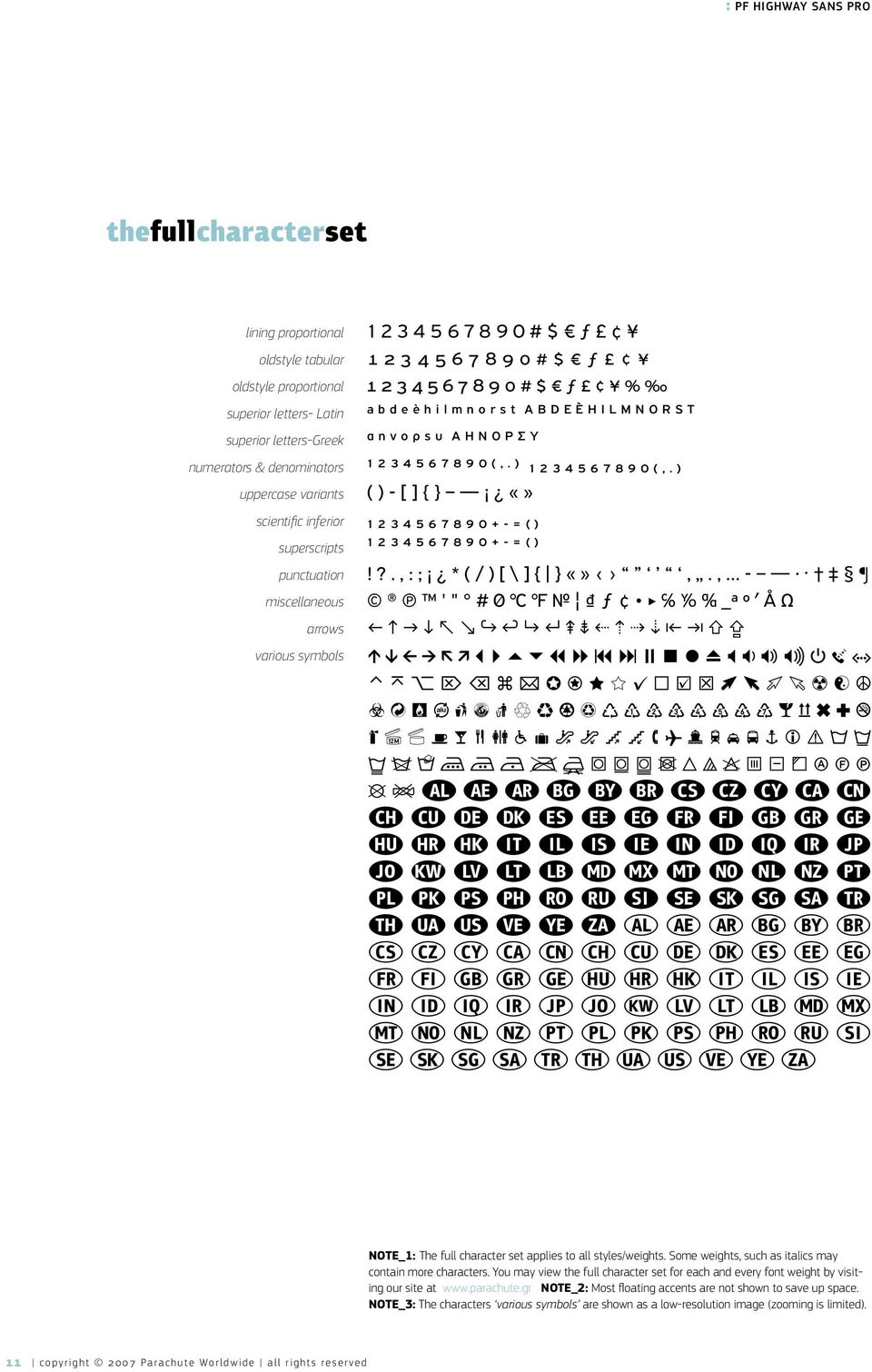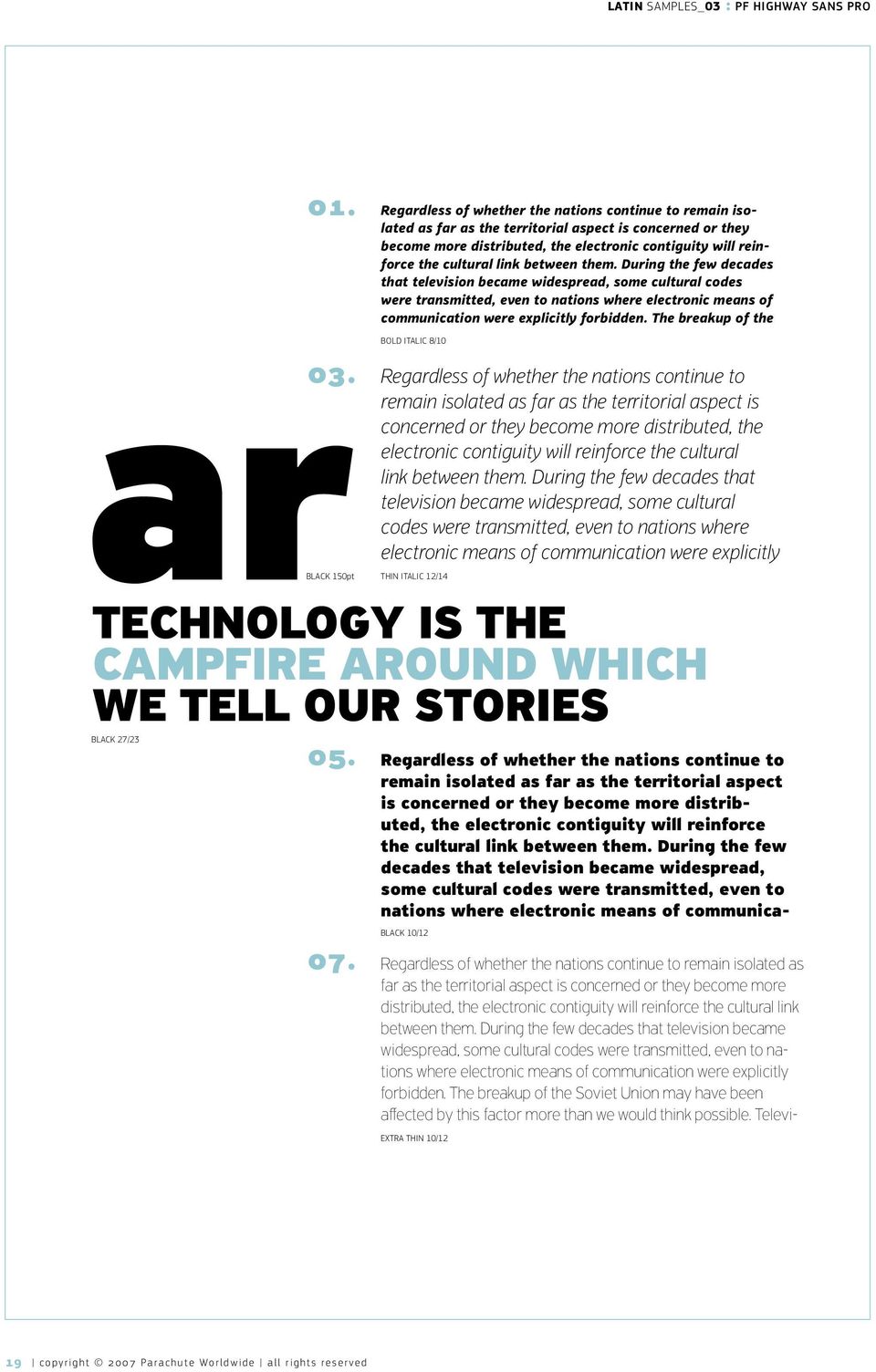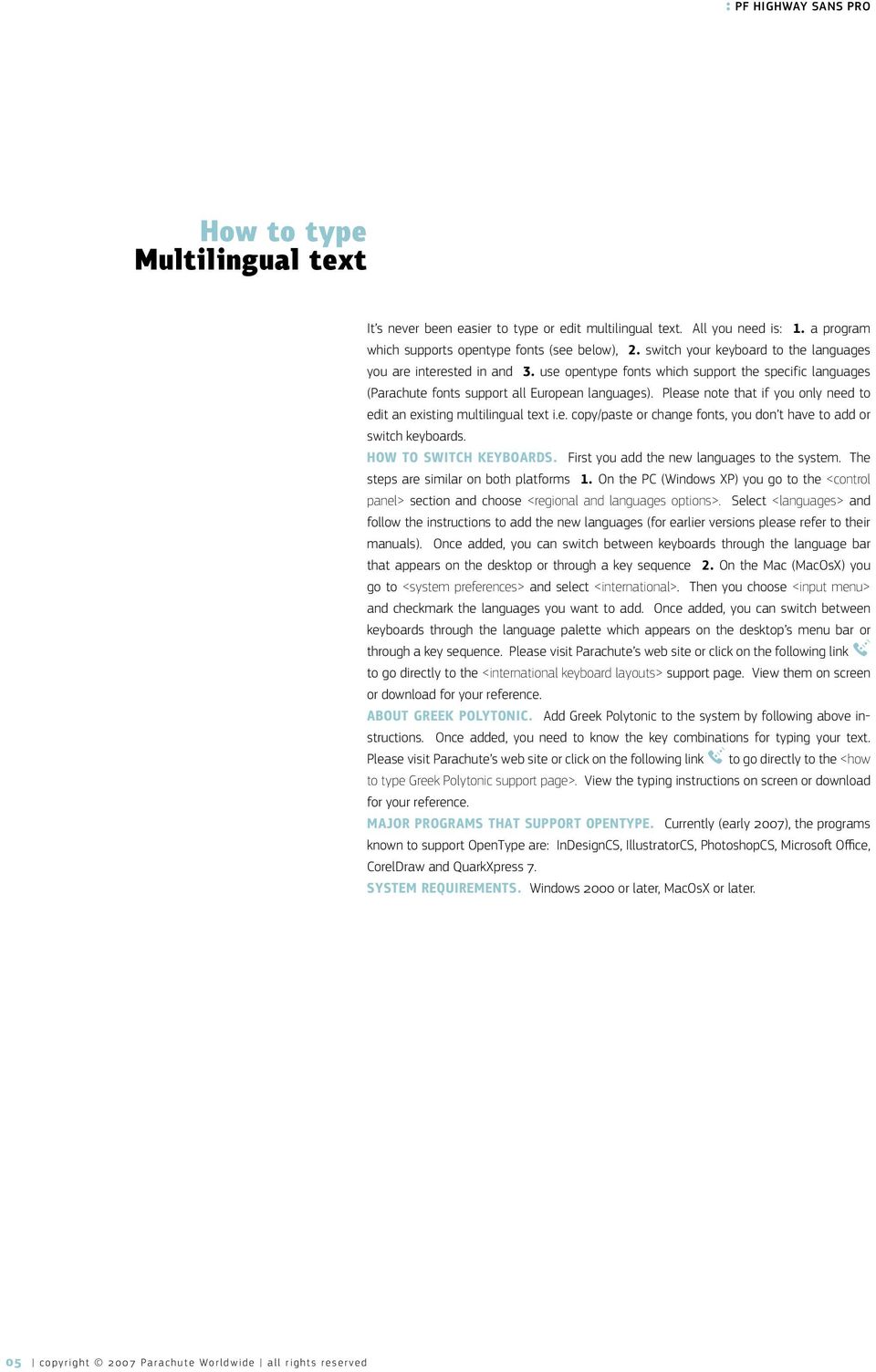
1 2007 PARACHUTE FONTS sophisticated opentype fonts for designers creatives visionaries and trendsetters SPECIMEN MANUAL PF Highway Sans Pro OpenType PS supports Latin, Greek, Greek Polytonic, Cyrillic, Eastern European, Turkish, Baltic, Vietnamese 1461 glyphs /font professional kerning for all languages 21 opentype features /font 14 weights 3600_highway sans pro_v.1.0/2007
6 fontcredits highway sans pro. Highway Sans Pro is based on the standard typefaces used for highway signs and other byways open to public travel in the United States. These standards were established by the US Federal Highway Administration in 1966 following several studies which were conducted at the California Department of Transportation in the 1940 s. The Parachute series has been designed to fit typographic requirements and includes a variety of styles from black to extra thin. Special attention has been given to the italics, which were designed from ground up to fit the term true-italics. Several updates were released since its debut in 2001, with this last Pro version being the most powerful. It supports 21 special opentype features like small caps, fractions, ordinals, etc. and offers multilingual support for all European languages including Greek and Cyrillic. Finally, every font in this family has been completed with 270 copyright-free symbols, some of which have been proposed by several international organizations for packaging, public areas, environment, transportation, computers, fabric care and urban life. format οpentype PS scripts latin, greek, greek polytonic, cyrillic, eastern european, turkish, baltic, vietnamese glyphs 1461 /font kerning applied to all languages pro features 21 weights 14 recommended for catalogs, magazines, newspapers designer Panos Vassiliou copyright 2007 Parachute Worldwide all rights reserved
8 stylesfontweights Extra Thin Italic AeΕf БеЕъ εeξ Thin Thin Italic AeΕf БеЕъ εeξ Light Light Italic AeΕf БеЕъ εeξ Regular Italic AeΕf БеЕъ εeξ Medium Medium Italic AeΕf БеЕъ εeξ Bold Bold Italic AeΕf БеЕъ εeξ Black Black Italic AeΕf БеЕъ εeξ NOTE: All weights contain the same pro features, the same language range and the full character set as seen on page copyright 2007 Parachute Worldwide all rights reserved
10 thefullcharacterset Latin Accented Latin glyphs Greek Greek Polytonic Alternate Set 2 (Greek Poly) Cyrillic Latin Small Caps Greek Small Caps ligatures stylistic alternates math symbols fractions A B C D E F G H I J K L M N O P Q R S T U V W X Y a b c d e f g h i j k l m n o p q r s t u v w x y z & $ À Á Â Ä Ã Å Ā Ă Ą Æ Ǽ Ć Ĉ Ċ Č Ç Ď Đ È É Ê Ë Ē Ĕ Ė Ę Ě Ð Ĝ Ğ Ġ Ģ Ĥ Ħ Ì Í Î Ï Ĩ Ī Ĭ Į İ IJ Ĵ Ķ Ĺ Ļ Ľ Ŀ Ł Ń Ň Ñ Ņ Ŋ Ò Ó Ô Ö Õ Ō Ŏ Ő Ơ Ø Ǿ Œ Ŕ Ŗ Ř Š Ś Ŝ Ş Ș Ţ Ť Ŧ Ù Ú Û Ü Ũ Ū Ŭ Ů Ű Ų Ư Ẁ Ẃ Ŵ Ẅ Ý Ỳ Ÿ Ŷ Ž Ź Ż Þ à á â ä ã å ā ă ą æ ǽ ć ĉ ċ č ç ď đ ð è é ê ë ē ĕ ė ě ę ĝ ğ ġ ģ ĥ ħ ì í î ï î ĩ ī ĭ į ı ij ĵ ķ ĸ ĺ ļ ľ ŀ ł ń ň ñ ņ ʼn ŋ ò ó ô ö õ ō ŏ ő ơ ø ǿ œ ŕ ŗ ř ś š ŝ ş ș ß ţ ť ŧ ù ú û ü ũ ū ŭ ů ű ų ư ẁ ẃ ŵ ẅ ý ỳ ŷ ÿ ź ž ż þ ə Α Β Γ Δ Ε Ζ Η Θ Ι Κ Λ Μ Ν Ξ Ο Π Ρ Σ Τ Υ Φ Χ Ψ Ω α β γ δ ε ζ η θ ι κ λ μ ν ξ ο π ρ σ ς τ υ φ χ ψ ω Ά Έ Ή Ί Ό Ώ Ϊ Ϋ ά έ ή ί ό ώ ϊ ϋ ΐ ΰ Ἀ Ἁ Ἂ Ἃ Ἄ Ἅ Ἆ Ἇ Ᾰ Ᾱ Ὰ Ά ᾼ ᾈ ᾉ ᾊ ᾋ ᾌ ᾍ ᾎ ᾏ Ἐ Ἑ Ἒ Ἓ Ἔ Ἕ Ὲ Έ Ὴ Ή Ἠ Ἡ Ἢ Ἣ Ἤ Ἥ Ἦ Ἧ ῌ ᾘ ᾙ ᾚ ᾛ ᾜ ᾝ ᾞ ᾟ Ἰ Ἱ Ἲ Ἳ Ἴ Ἵ Ἶ Ἷ Ῐ Ῑ Ὶ Ί Ὀ Ὁ Ὂ Ὃ Ὄ Ὅ Ὸ Ό Ῥ Ὑ Ὓ Ὕ Ὗ Ῠ Ῡ Ὺ Ύ Ὼ Ώ Ὠ Ὡ Ὢ Ὣ Ὤ Ὥ Ὦ Ὧ ῼ ᾨ ᾩ ᾪ ᾫ ᾬ ᾭ ᾮ ᾯ ἀ ἁ ἂ ἃ ἄ ἅ ἆ ἇ ὰ ά ᾰ ᾱ ᾶ ᾀ ᾁ ᾂ ᾃ ᾄ ᾅ ᾆ ᾇ ᾲ ᾳ ᾴ ᾷ ἐ ἑ ἒ ἓ ἔ ἕ ὲ έ ἠ ἡ ἢ ἣ ἤ ἥ ἦ ἧ ὴ ή ῆ ᾐ ᾑ ᾒ ᾓ ᾔ ᾕ ᾖ ᾗ ῂ ῃ ῄ ῇ ἰ ἱ ἲ ἳ ἴ ἵ ἶ ἷ ὶ ί ῐ ῑ ῒ ΐ ῖ ῗ ὀ ὁ ὂ ὃ ὄ ὅ ὸ ό ῤ ῥ ὐ ὑ ὒ ὓ ὔ ὕ ὖ ὗ ὺ ύ ῠ ῡ ῢ ΰ ῦ ῧ ὠ ὡ ὢ ὣ ὤ ὥ ὦ ὧ ὼ ώ ῶ ᾠ ᾡ ᾢ ᾣ ᾤ ᾥ ᾦ ᾧ ῲ ῳ ῴ ῷ А Б В Г Д Е Ё Ж З И Й К Л М Н О П Р С Т У Ф Х Ц Ч Ш Щ Ъ Ы Ь Э Ю Я Ђ Ѓ Є Ѕ І Ї Ј Љ Њ Ћ Ќ Ў Ґ Џ а б в г д е ё ж з и й к л м н о п р с т у ф х ц ч ш щ ъ ы ь э ю я ђ ѓ є ѕ і ї ј љ њ ћ ќ ў ґ џ ә ì í î ï ff fi ffi fl ffl ſt Ќ Ж К ж к ќ μ π Δ l ^ + ± < = > ~ ½ ⅓ ⅔ ¼ ¾ ⅕ ⅖ ⅗ ⅘ ⅙ ⅚ ⅛ ⅜ ⅝ ⅞ ⅟ % NOTE_1: The full character set applies to all styles/weights. Some weights, such as italics may contain more characters. You may view the full character set for each and every font weight by visiting our site at NOTE_2: Most floating accents are not shown to save up space. 10 copyright 2007 Parachute Worldwide all rights reserved
11 thefullcharacterset lining proportional oldstyle tabular oldstyle proportional superior letters- Latin superior letters-greek numerators & denominators uppercase variants scientific inferior superscripts punctuation miscellaneous arrows various symbols ⁿ È ₁ ₂ ₃ ₄ ₅ ₆ ₇ ₈ ₉ ₀ + = ( ) ¹ ² ³ ⁴ ⁵ ⁶ ⁷ ⁸ ⁹ ⁰ + = ( )!?., : ; * ( / ) [ \ ] { }., - ' " # ƒ _ª º ʹ A Ω NOTE_1: The full character set applies to all styles/weights. Some weights, such as italics may contain more characters. You may view the full character set for each and every font weight by visiting our site at NOTE_2: Most floating accents are not shown to save up space. NOTE_3: The characters various symbols are shown as a low-resolution image (zooming is limited). 11 copyright 2007 Parachute Worldwide all rights reserved